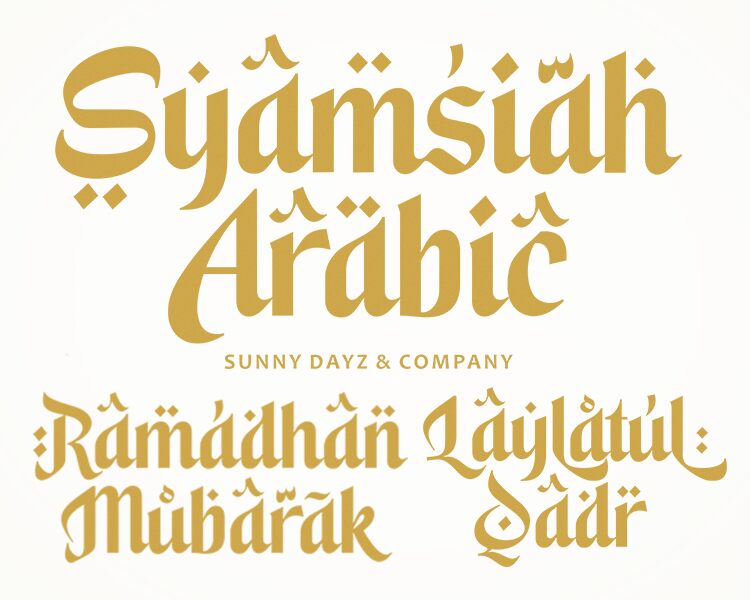
Syamsiah Arabic font designed by Four Lines is a free font available for personal use. Combine precise geometric shapes with fluid flowing lines and a defined structure to end up with this wonderful creation. Uniformity and rhythm are established in this versatile font which presents a monumental presence and an appealing visual impression every time it is featured.
Create a polished and professional aesthetic for your projects by using this font for magazines, newspapers, advertisements, etc. Its calligraphic style is particularly intended for literary works where it can be used for book covers, historical articles, academic publications, or research.